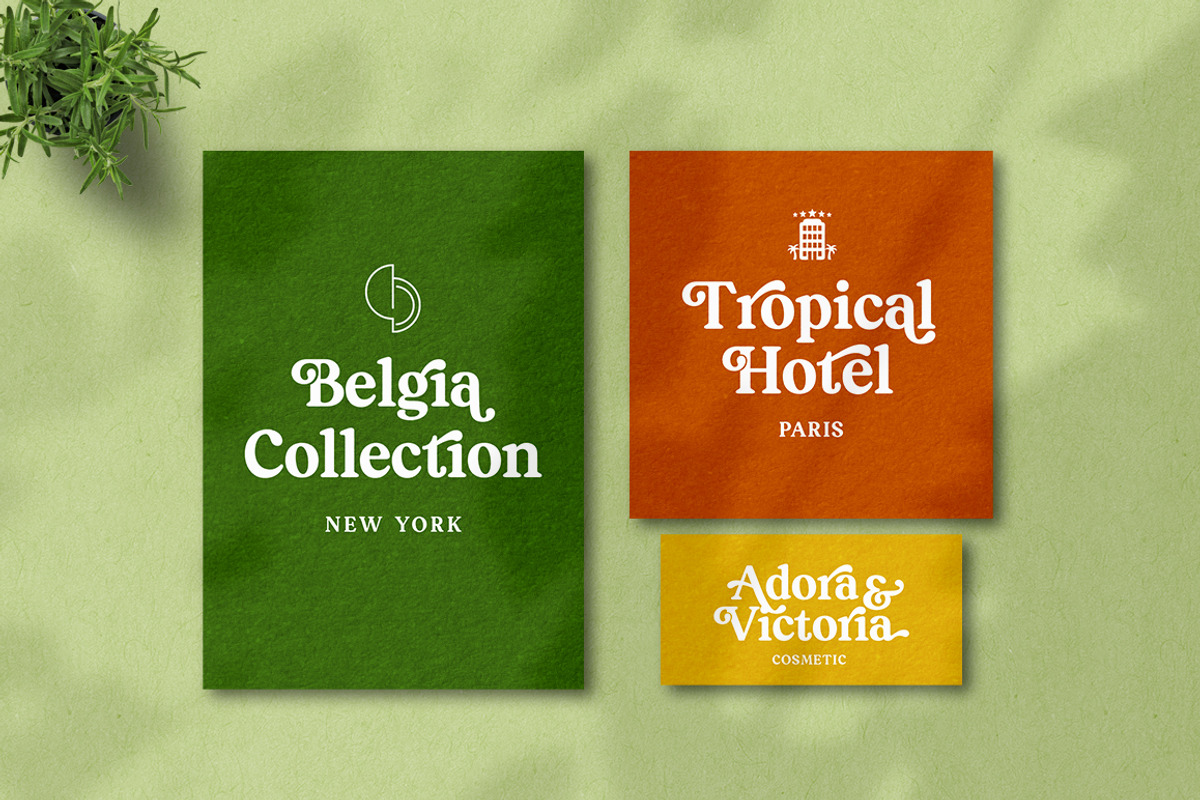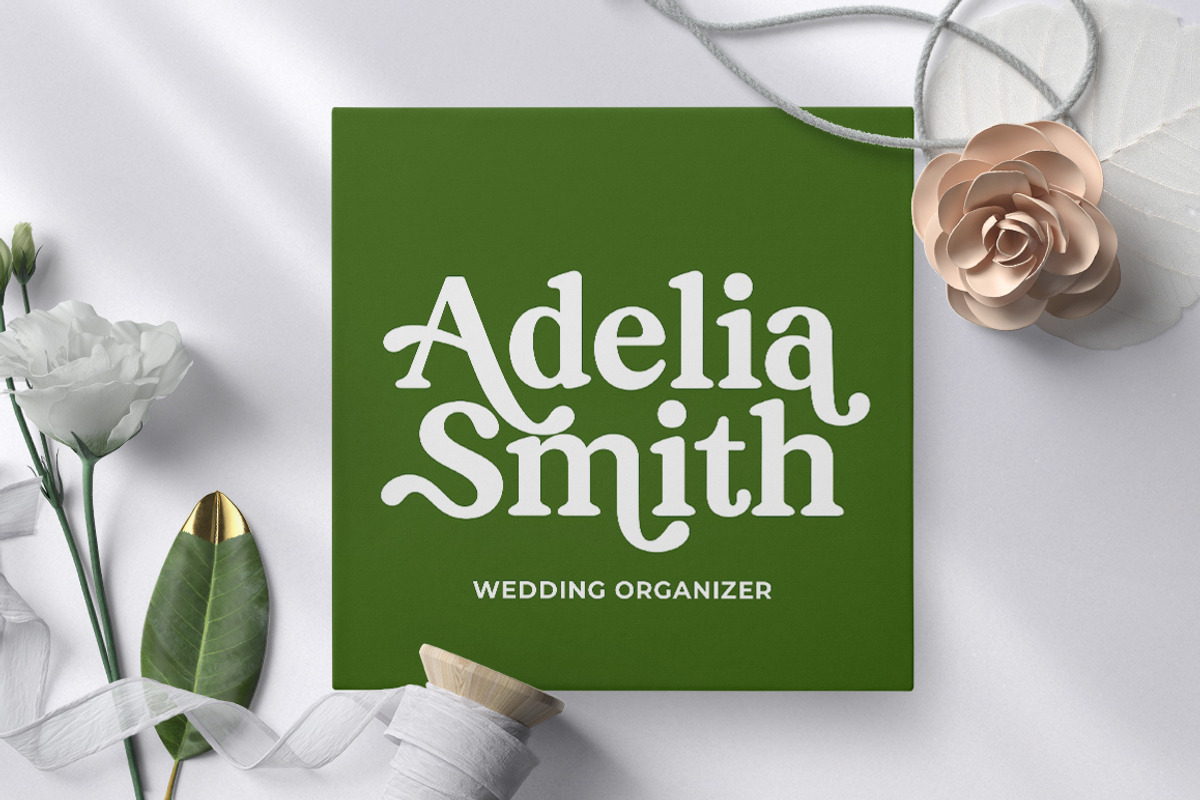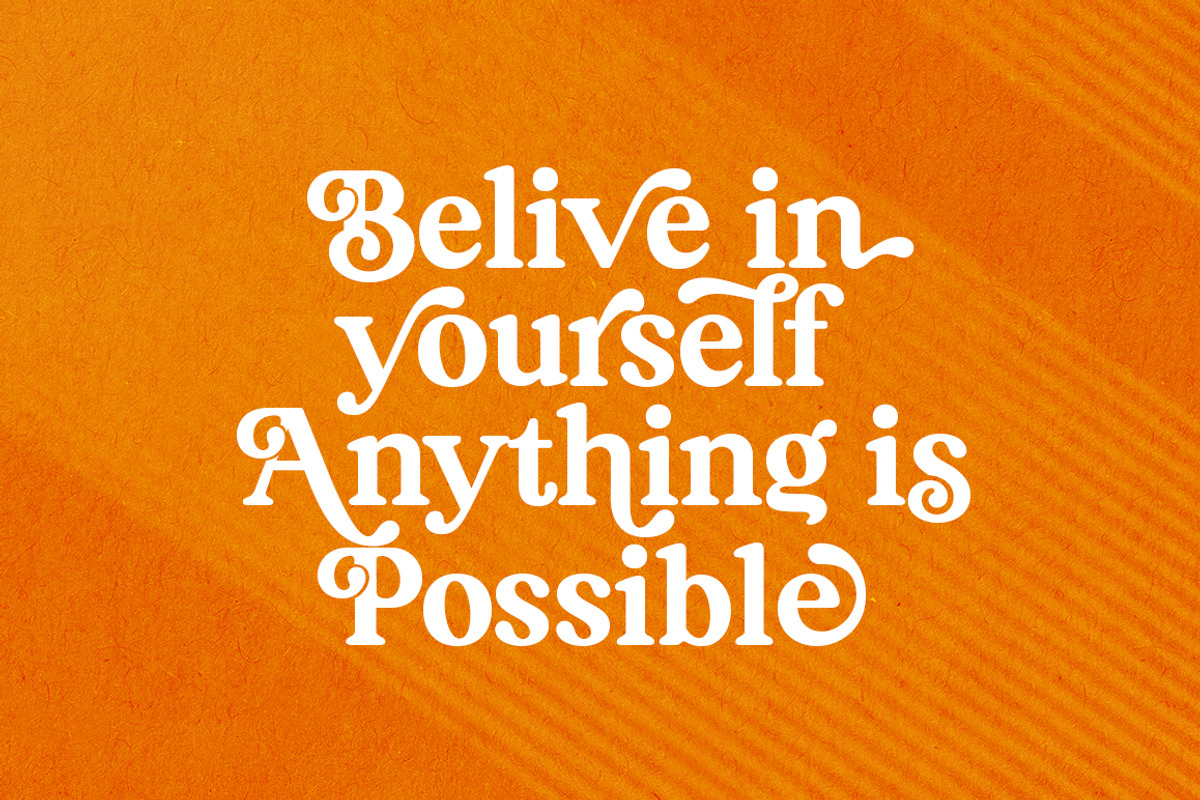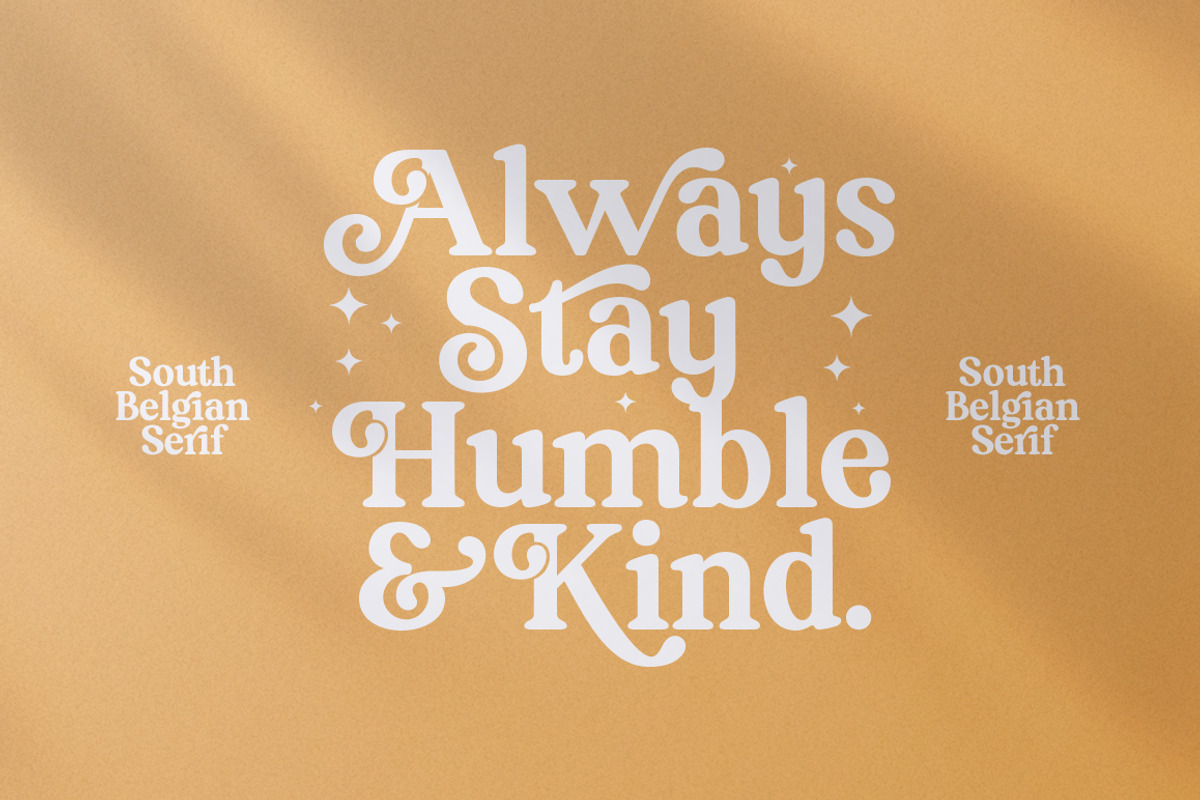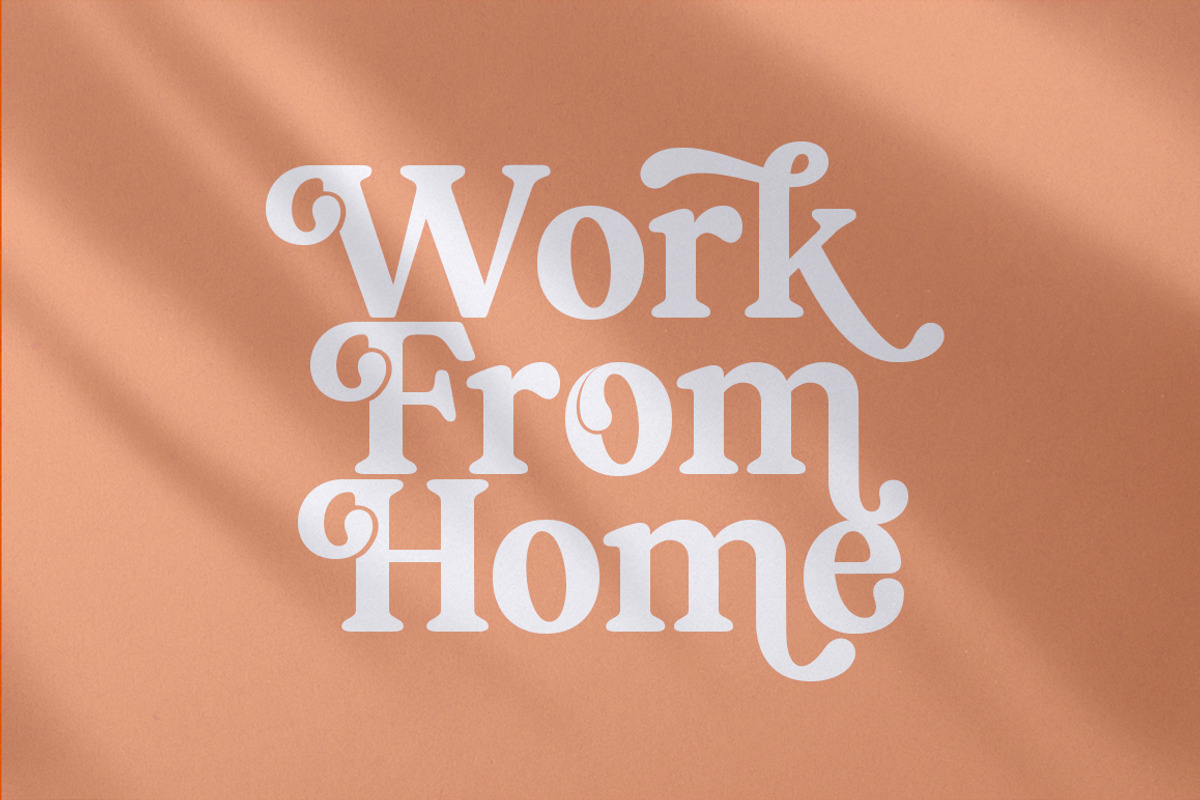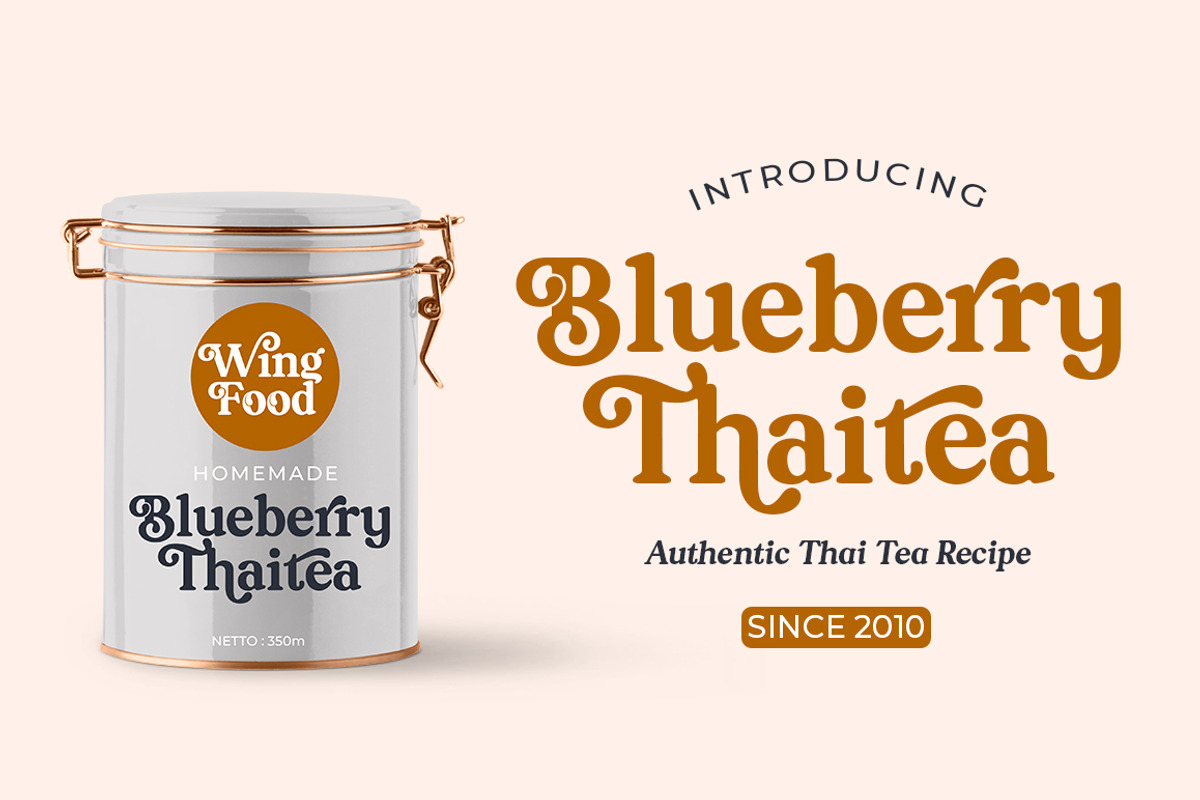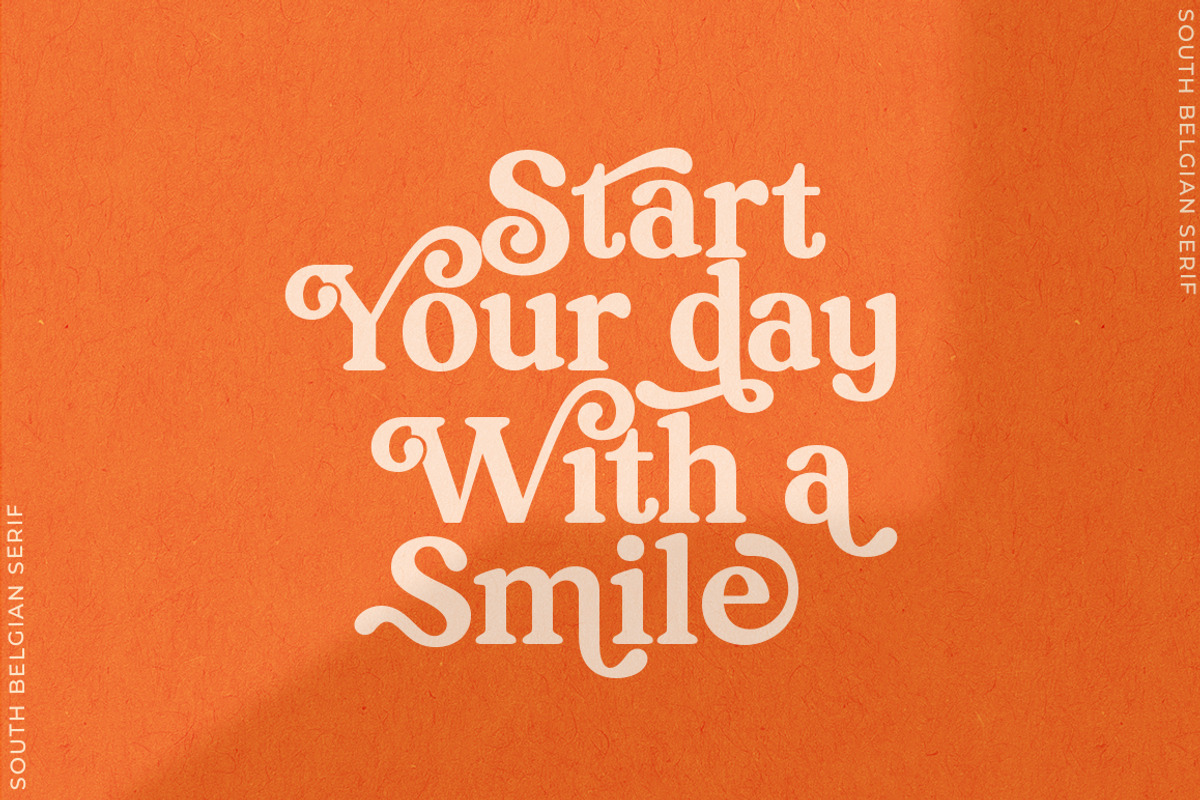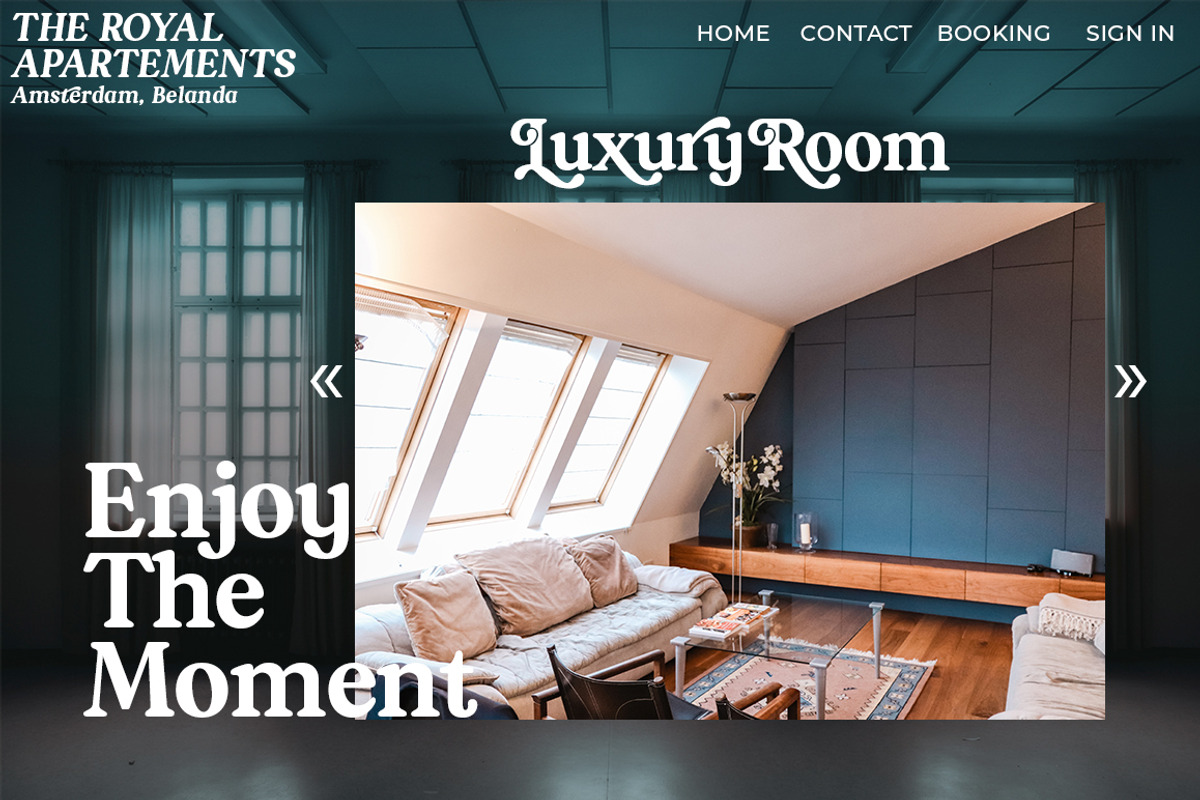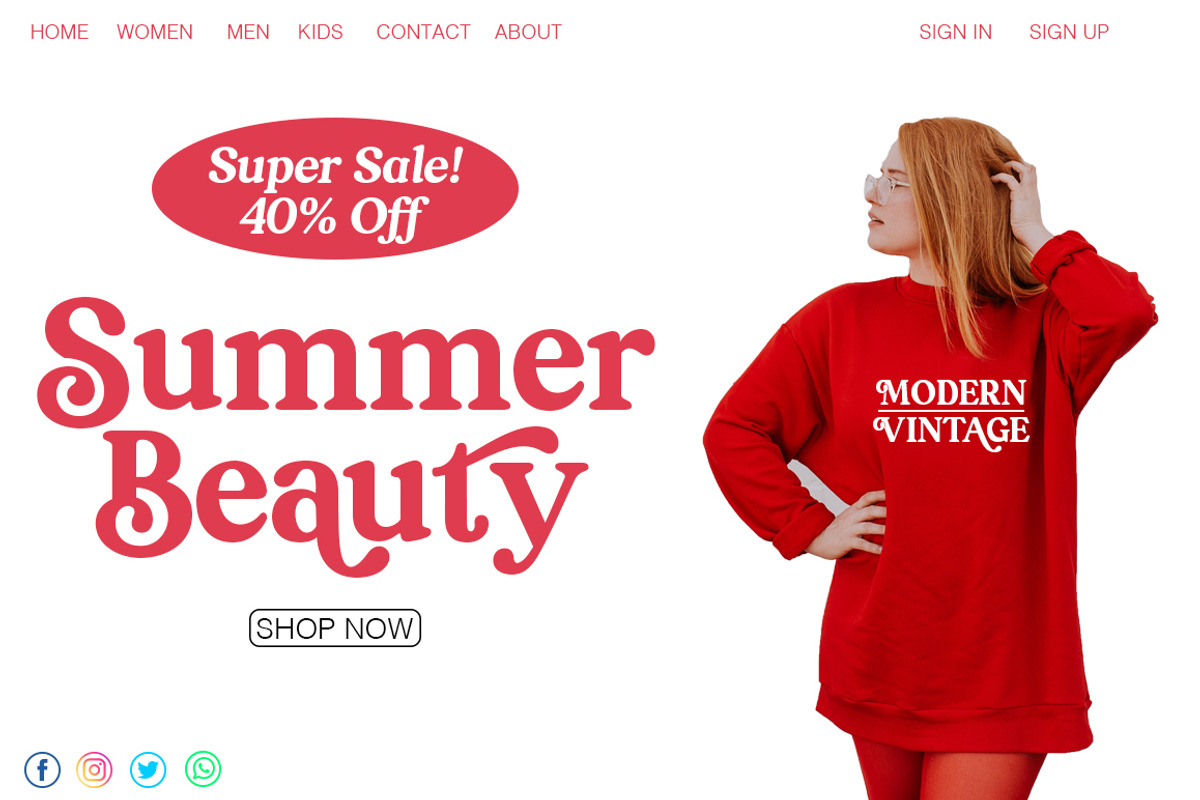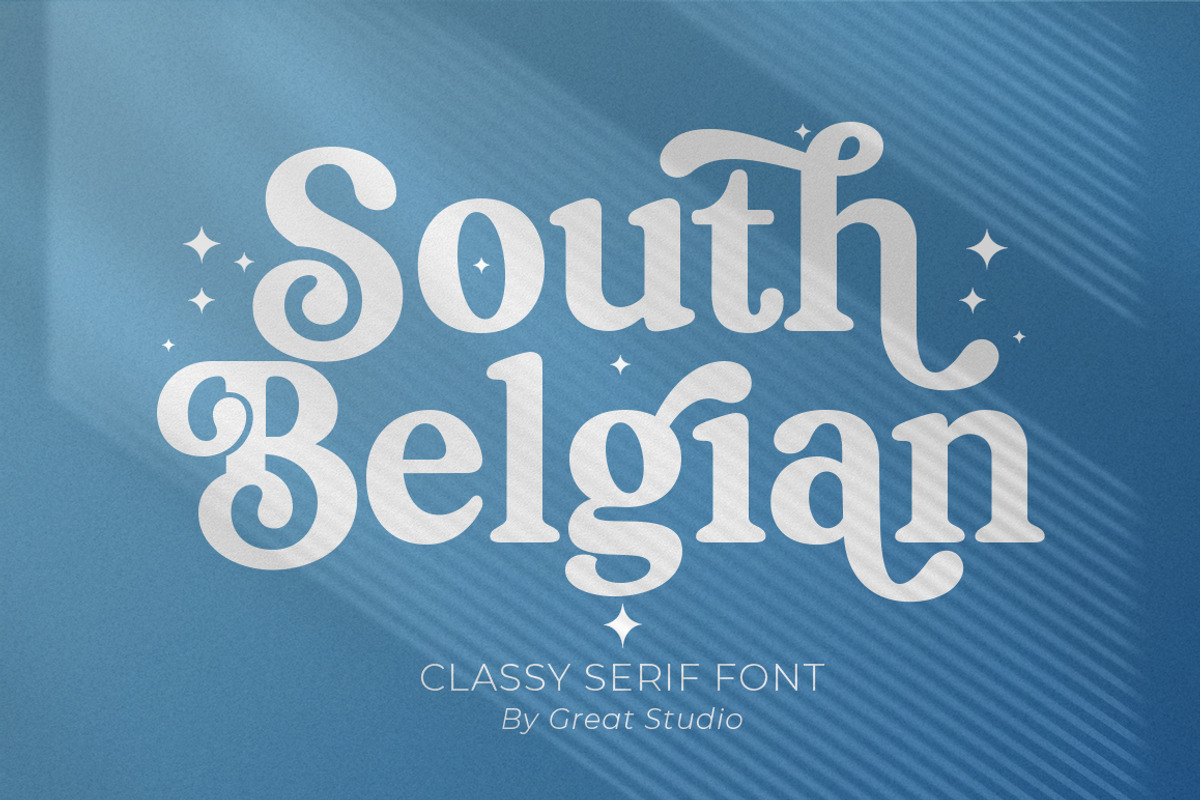
South Belgian - Retro Serif
South Belgian is a soft vintage serif font packaged in a modern and classy style, complete with access to your OpenType features to access a large selection of alternates letters and ligatures, the choice of letters you like from variations of uppercase and lowercase letters to get a display luxurious and elegant.
South Belgian is Perfect for branding projects, Logo design, Clothing Branding, packaging, magazine headings, advertising, T-shirts, postcards and much more.